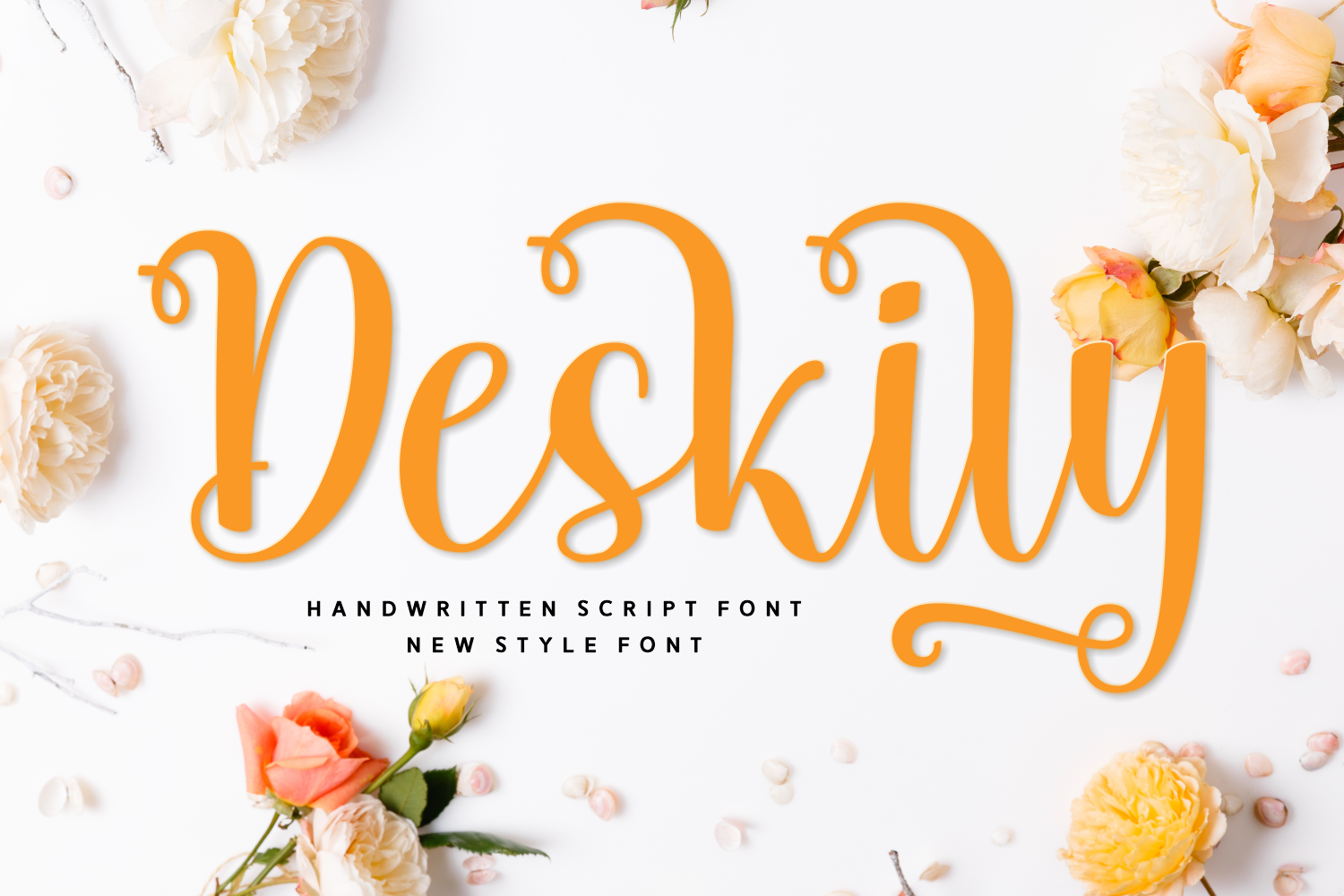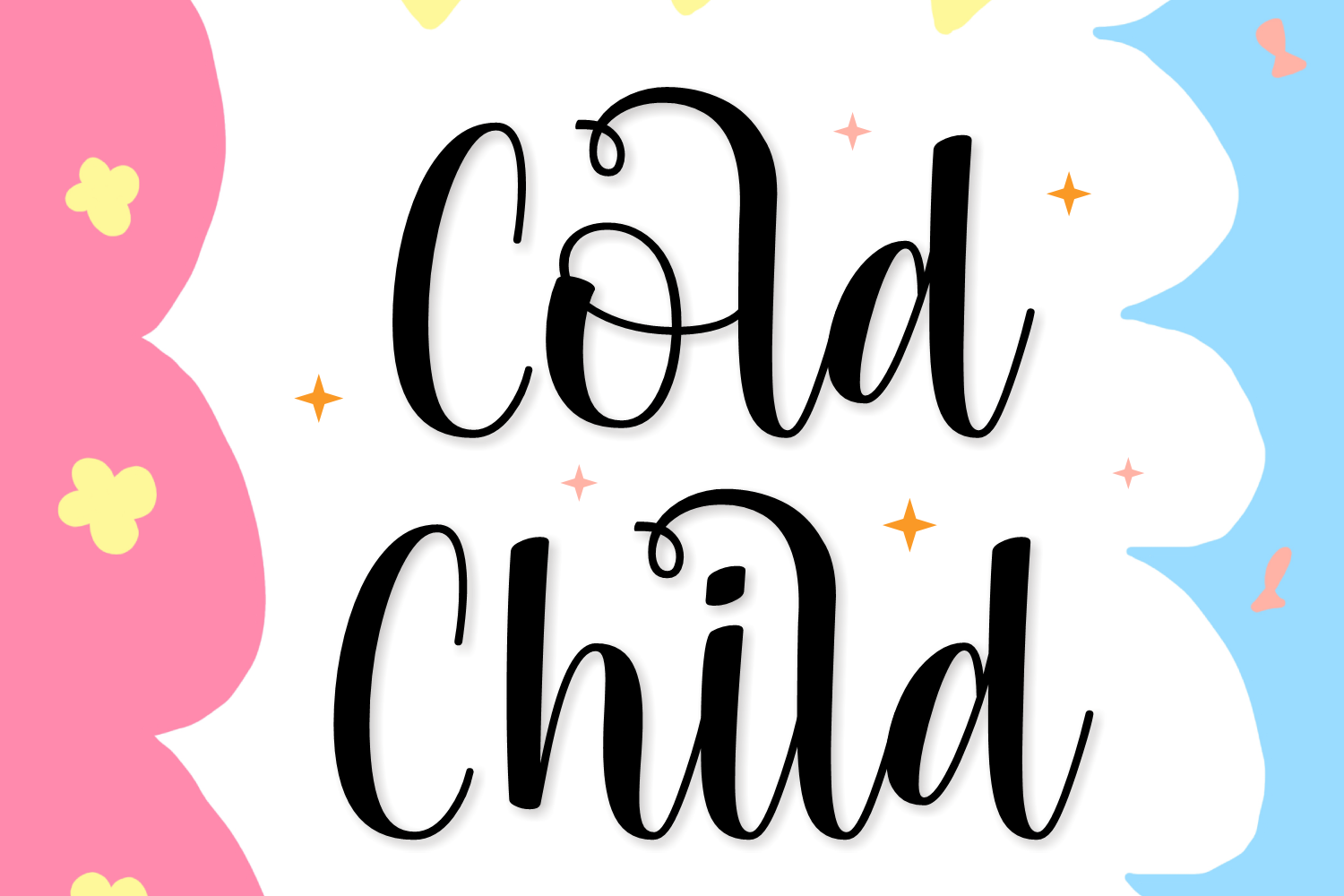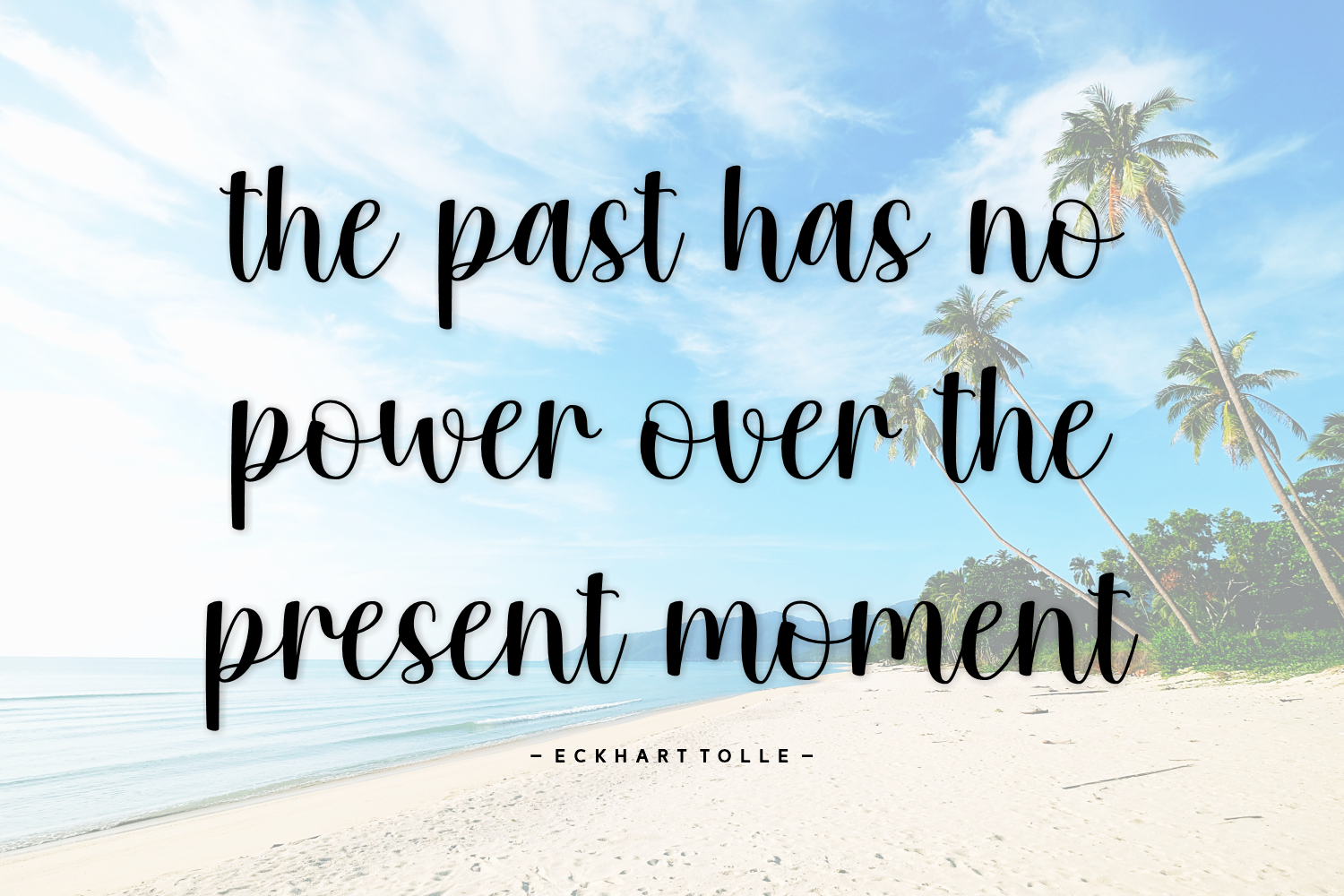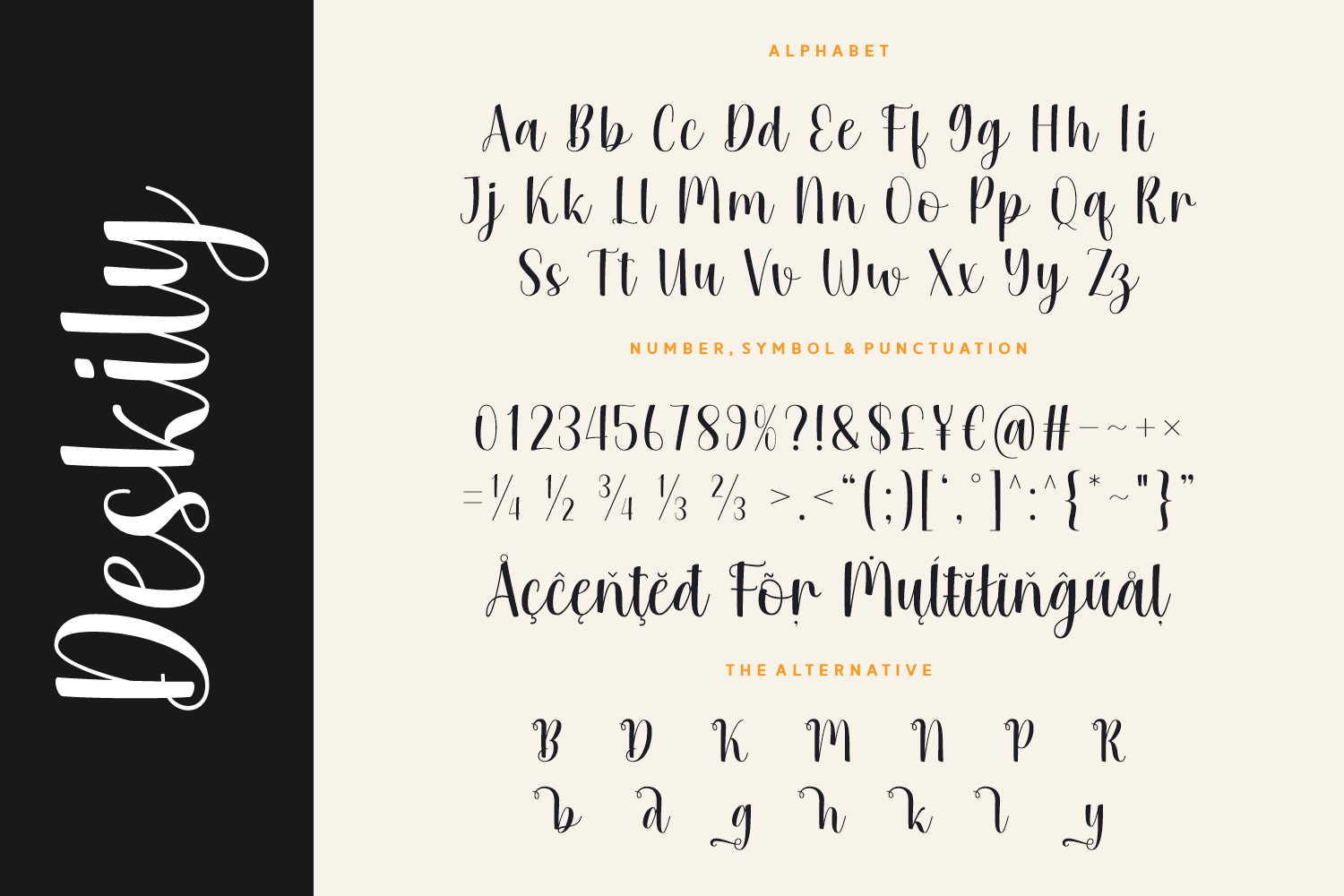
Deskily is a cheerful handwritten script font with graceful curves and delicate swashes that bring a touch of romance to your designs. Perfect for wedding invitations, feminine branding, greeting cards, and social media posts, this font radiates charm and playfulness.